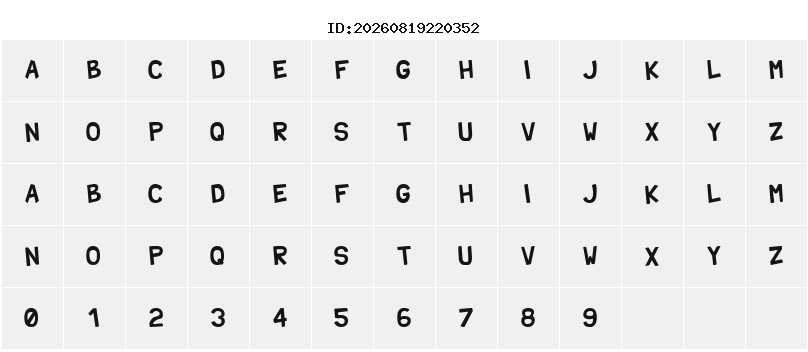
Shark Formal Funnyness Preview
• Font Name: Shark Formal Funnyness
• Font Style: Shark Formal Funnyness
• Full Font Name: Shark Formal Funnyness
About Shark Formal Funnyness.ttf
Shark Formal Funnyness.ttf is a modern, elegant sans-serif font designed for ultimate readability and visual harmony. Perfect for branding, headlines, web design, and print materials.